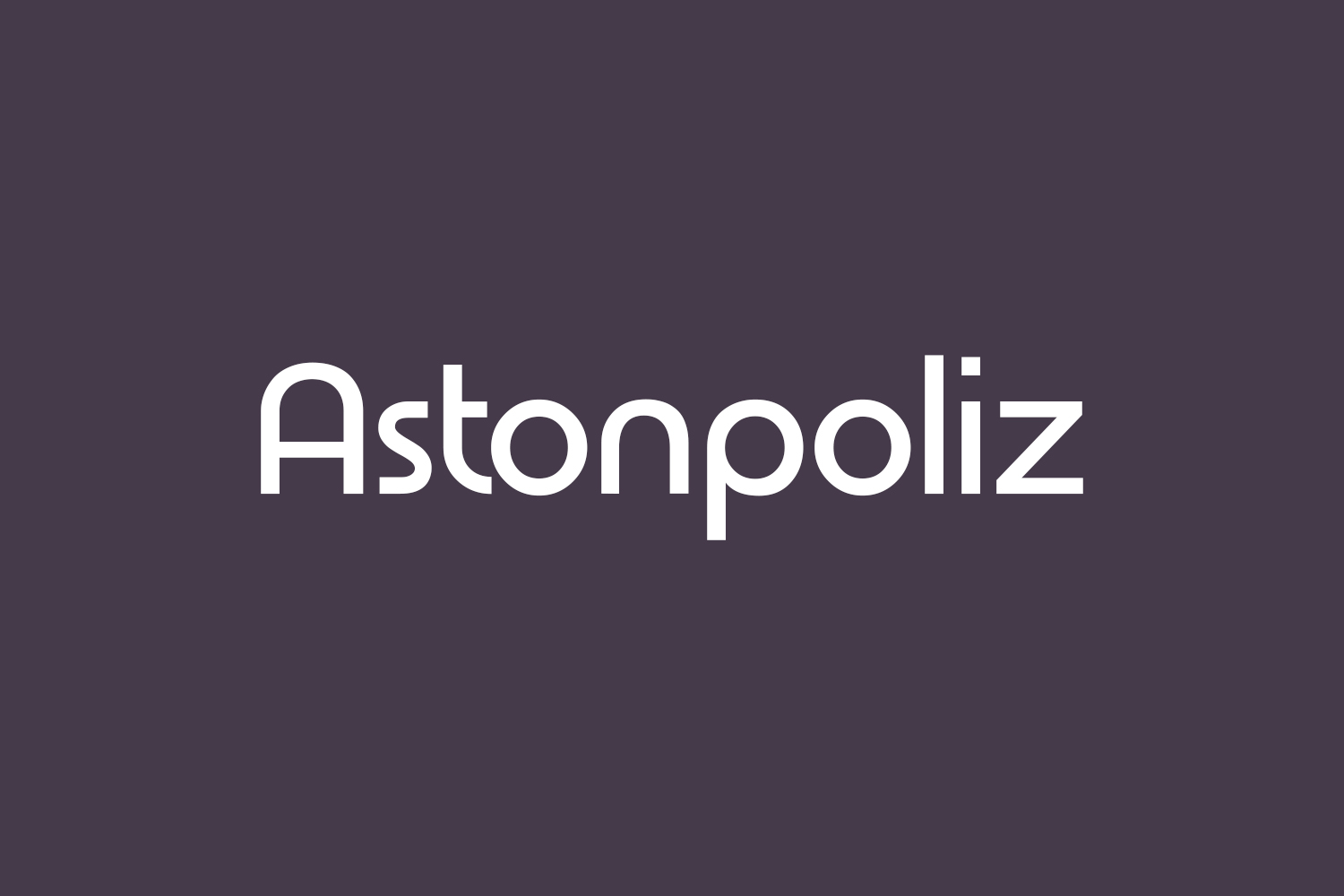
Astonpoliz Free Font – Modern Sans Serif for Stylish & Minimalist Design
Astonpoliz is a sleek and modern sans-serif font designed by Hujan Type to bring clean elegance and strong visual identity to your creative projects. With its geometric structure, uniform strokes, and minimalist appeal, this free decorative typeface works perfectly for crafting stylish logos, branding materials, digital interfaces, magazine headers, and more. Available in TTF and OTF formats — ideal for designers seeking a versatile, contemporary font that blends simplicity with bold presence.
Why Choose Astonpoliz?
- Clean & Geometric Style: Combines sharp lines with minimal detailing for a balanced, professional appearance.
- Ideal for UI & Web Design: Perfect for websites, app typography, or landing page buttons where clear communication is essential.
Where to Use Astonpoliz?
Astonpoliz shines across a variety of design applications:
- Logos & Branding: Adds confidence to brand identities for tech startups, fashion labels, or lifestyle blogs needing a modern tone.
- Editorial Design: Stands out in blog headers, newspaper titles, and advertising campaigns needing clarity and impact.
- Digital Interfaces: Ideal for web headers, mobile apps, or user interface elements where legibility is key.
- Poster & Billboard Design: Designed for visibility — makes headlines pop in large-format visuals.
- Social Media Graphics: Enhances Instagram Stories, TikTok overlays, and YouTube banners with a crisp, stylish look.
Design Tips with Astonpoliz
To get the most from Astonpoliz, pair it with expressive script fonts like Blank Script for contrast and visual hierarchy. Use this font at medium sizes for body copy or interface buttons. For print work, apply subtle shadows or outlines to improve legibility on textured backgrounds. Try our interactive font preview tool below to test Astonpoliz with your own text before downloading!